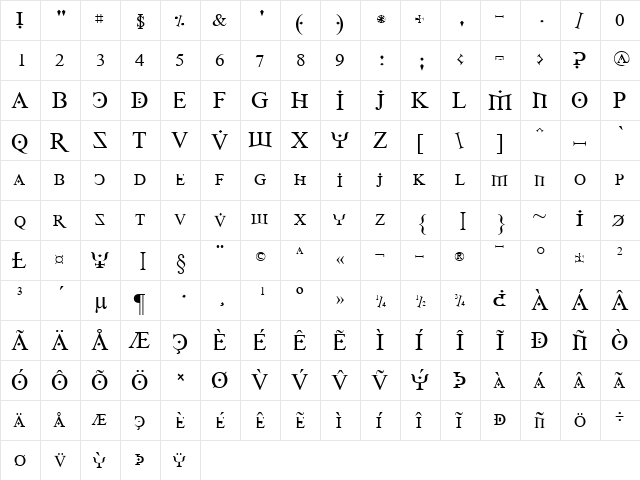
Fire Of Ysgard Regular Regular
Design Context for Fire Of Ysgard Regular Typeface
Fire Of Ysgard Regular offers clean, dependable letterforms without strong stylistic allegiance, making it a practical choice for designers who need flexibility.